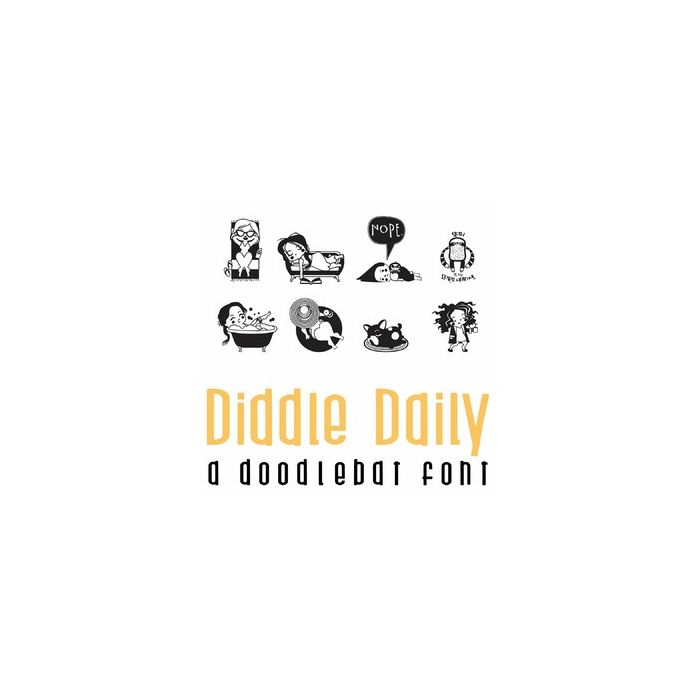
This full doodlebat font features 26 of our lazy girls enjoying life to the fullest with some of her lazy pets. Makes adorable, cards, gifts, crafts, scrap book pages and more!